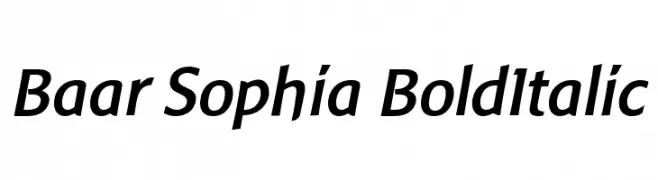
( Lutz Baar - baar.se/aidfonts/ )
A bold, italicized font with a dynamic and assertive style.
( Lutz Baar - baar.se/aidfonts/ )
A modern, bold italic font with smooth strokes and medium contrast.
( Lutz Baar - baar.se/aidfonts/ )
A bold, italicized font with a modern and sleek design.